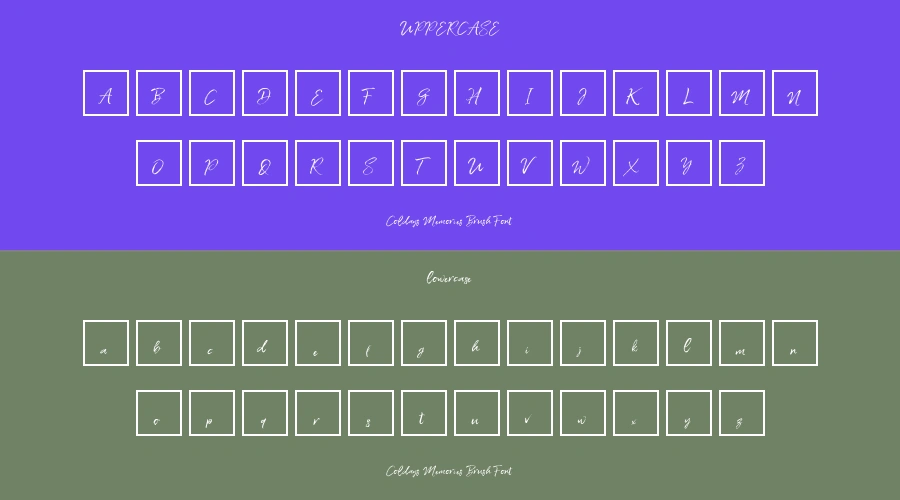
About Coldays Memories Brush Font
Designed with precision, Coldays Memories Brush Font merges measured spacing with longevity in every character. This versatility makes it particularly effective for print publications, where versatility and enduring appeal directly impact communication quality. Each letterform demonstrates meticulous craftsmanship.
Technical excellence shines through elements like pressure variations and stylistic sets, enhancing typographic versatility. In editorial spreads settings, Coldays Memories Brush Font proves its worth through superior output consistency. The thoughtful execution of counter shape and artistic merit ensures professional results.
Coldays Memories Brush Font |